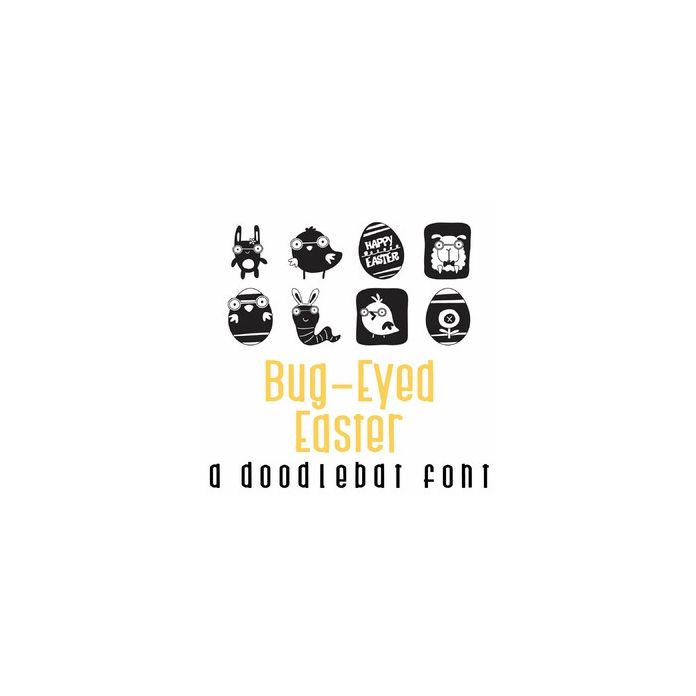
This fun doodlebat font features 26 cute bug-eyed insects and animals ready for Easter. Perfect for cards, crafts, gifts, decor, scrapbook pages, planner stickers and more!